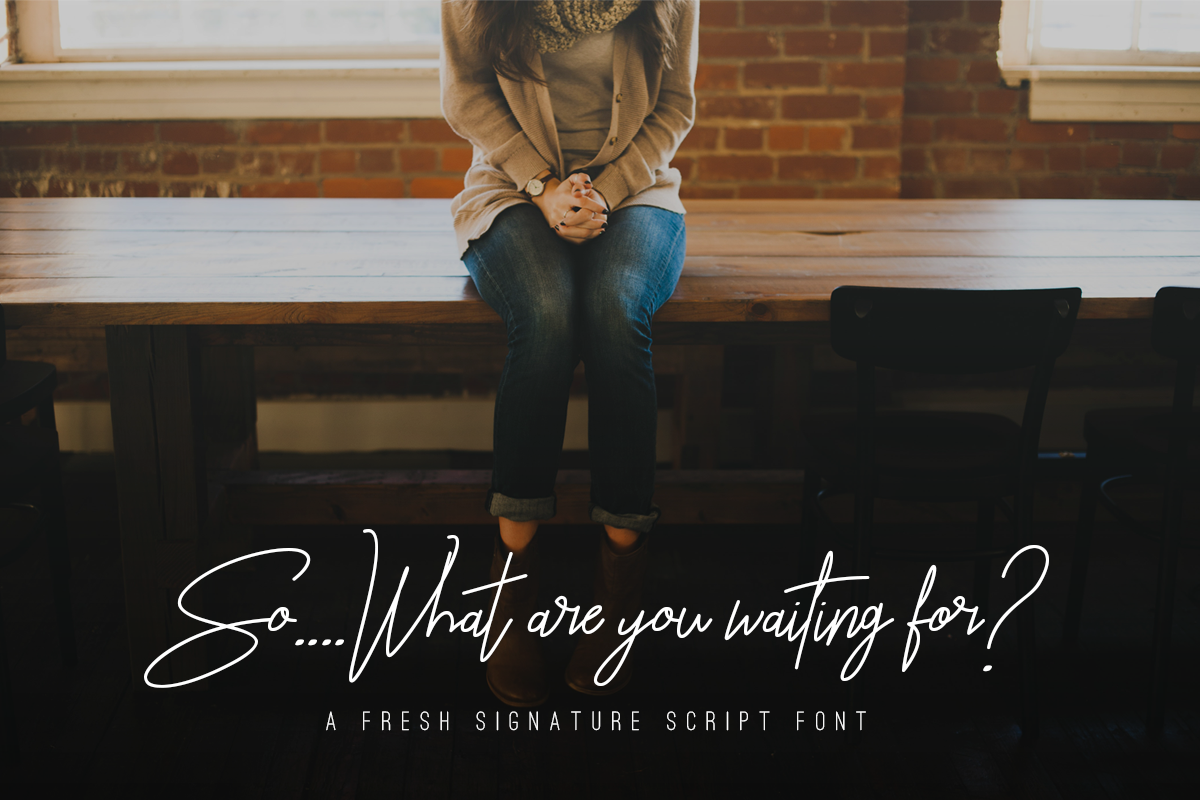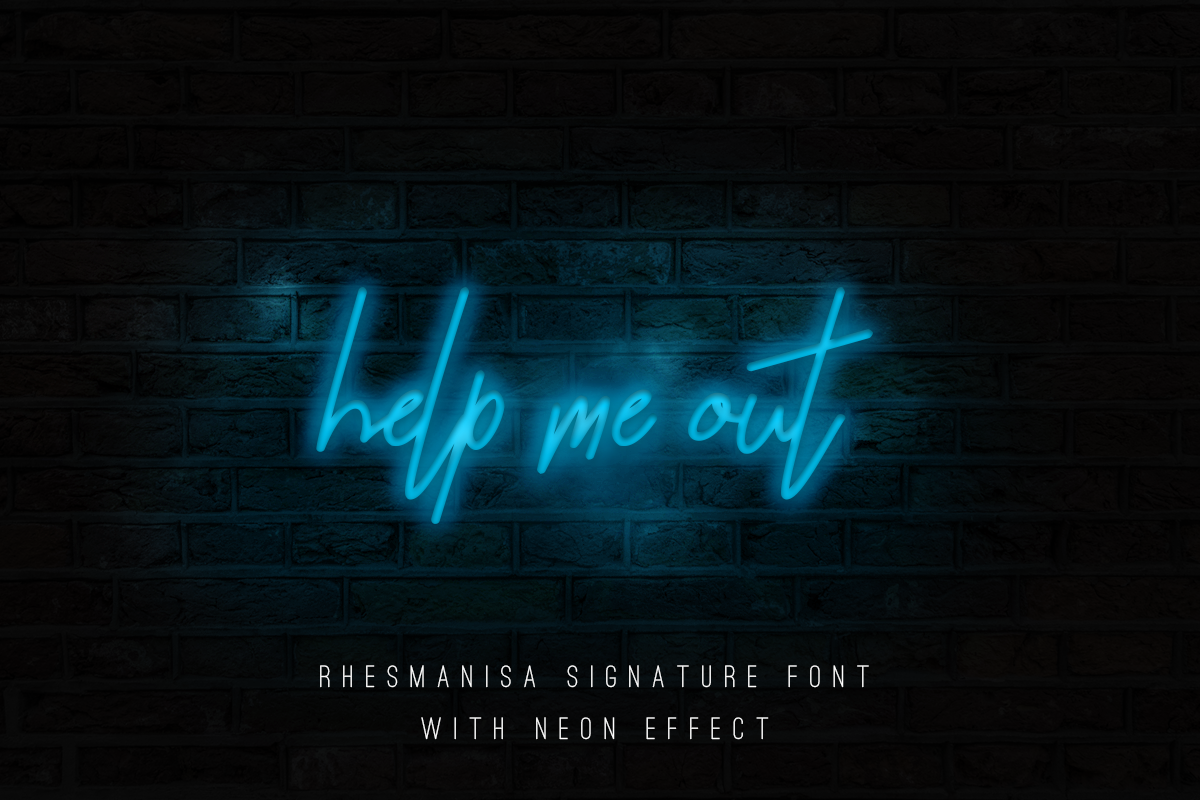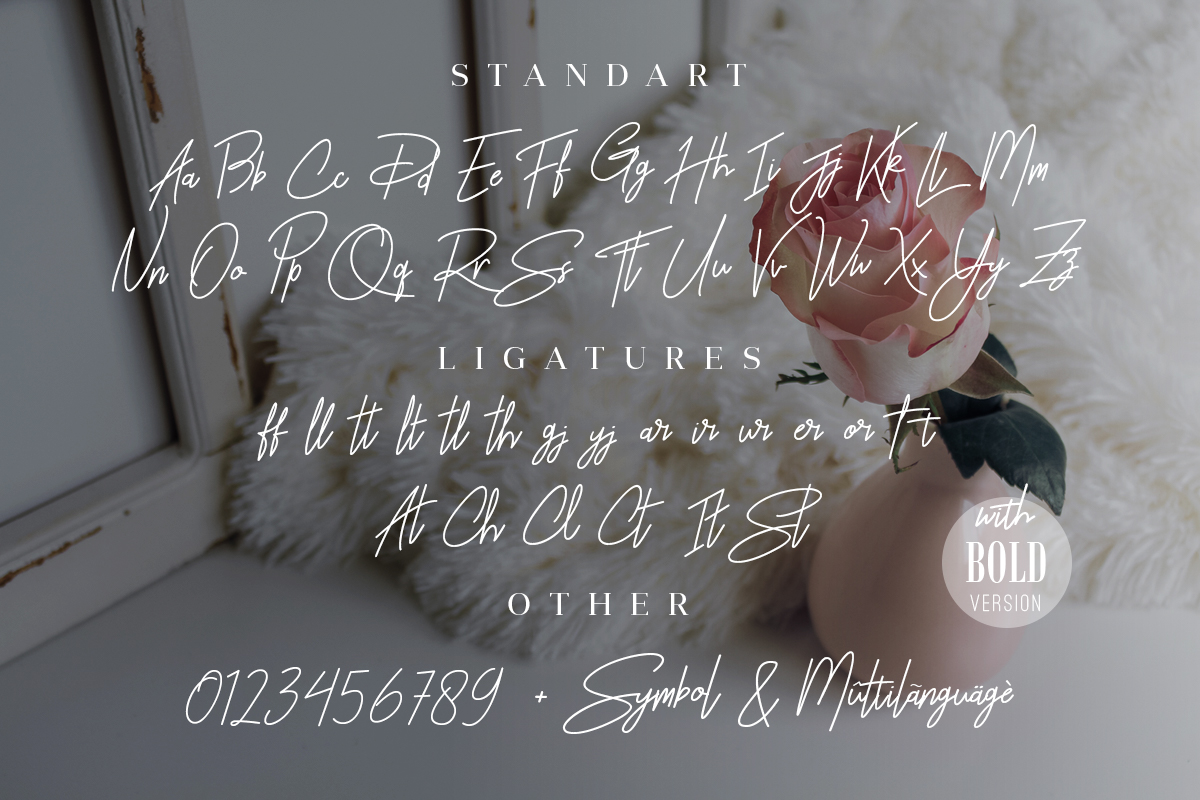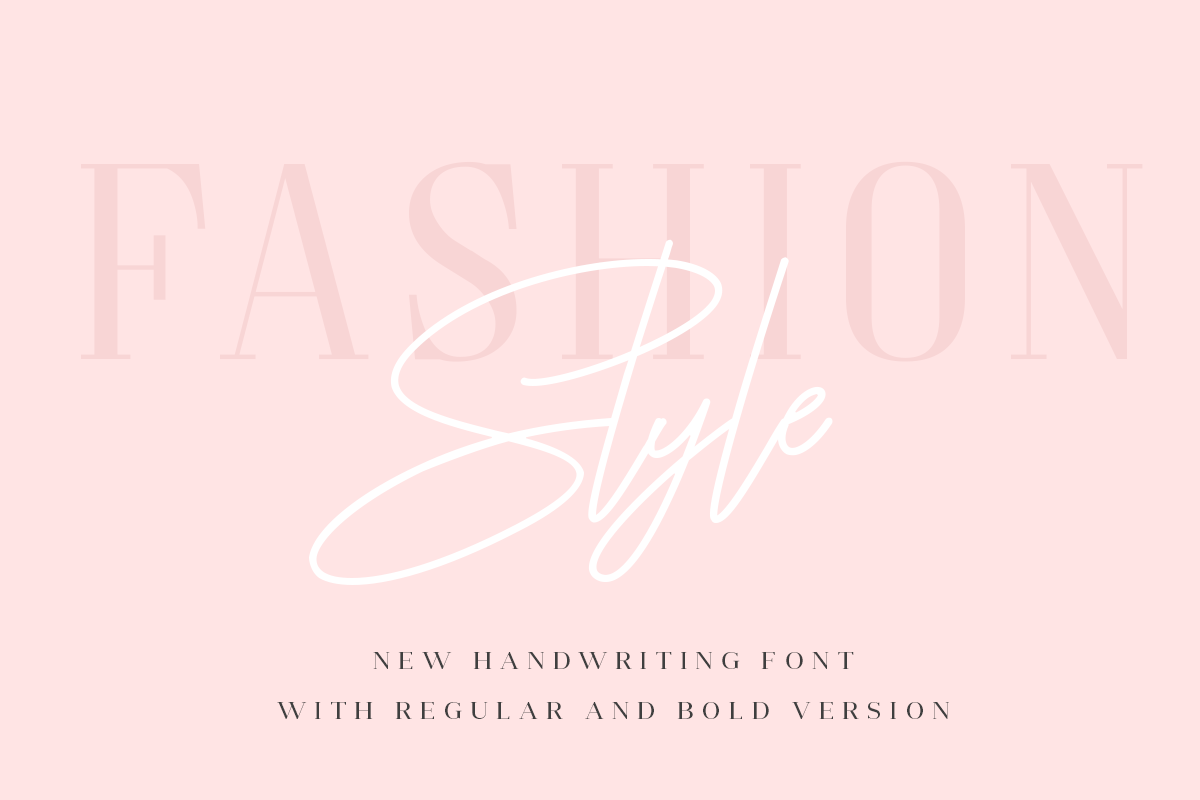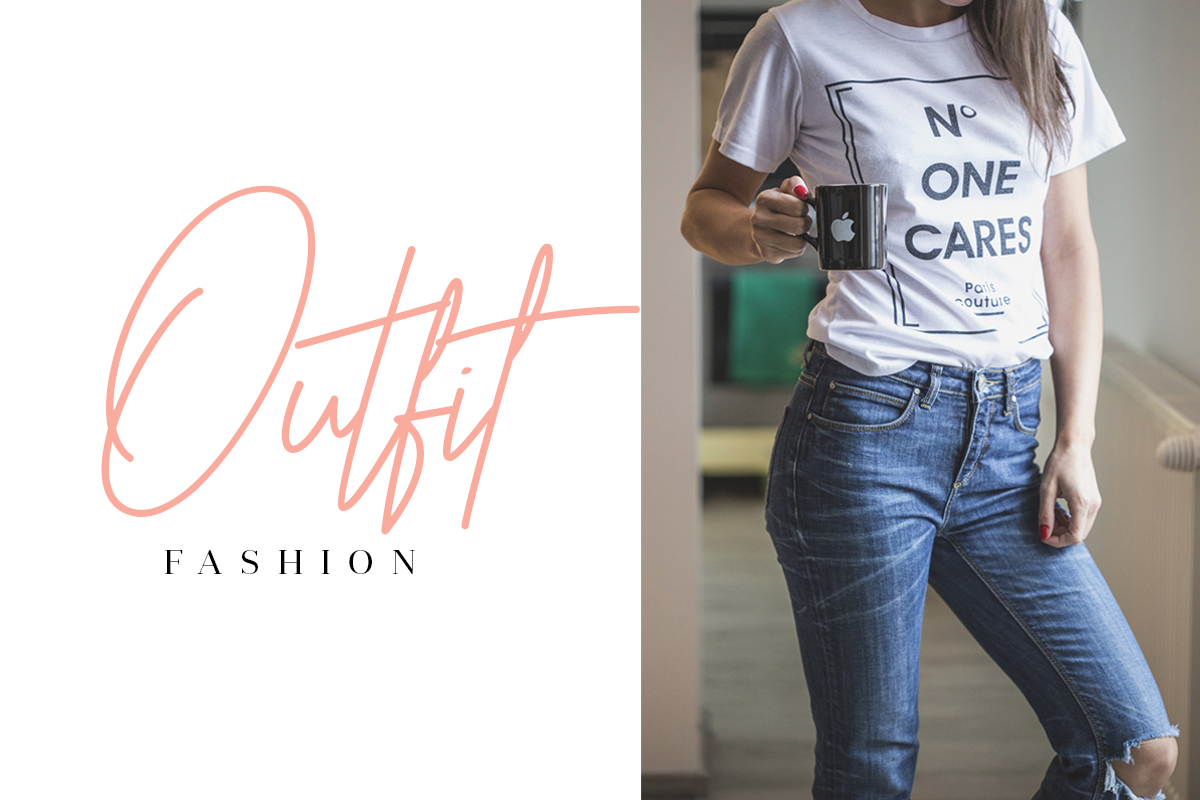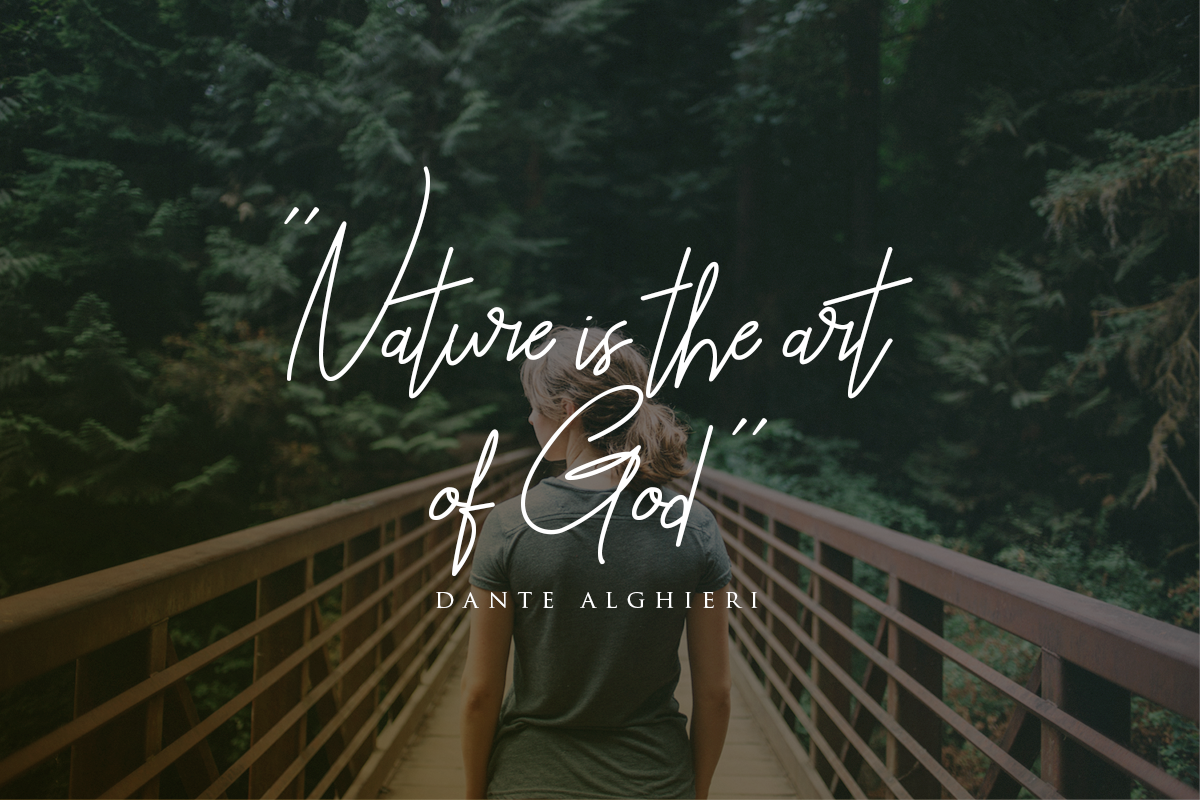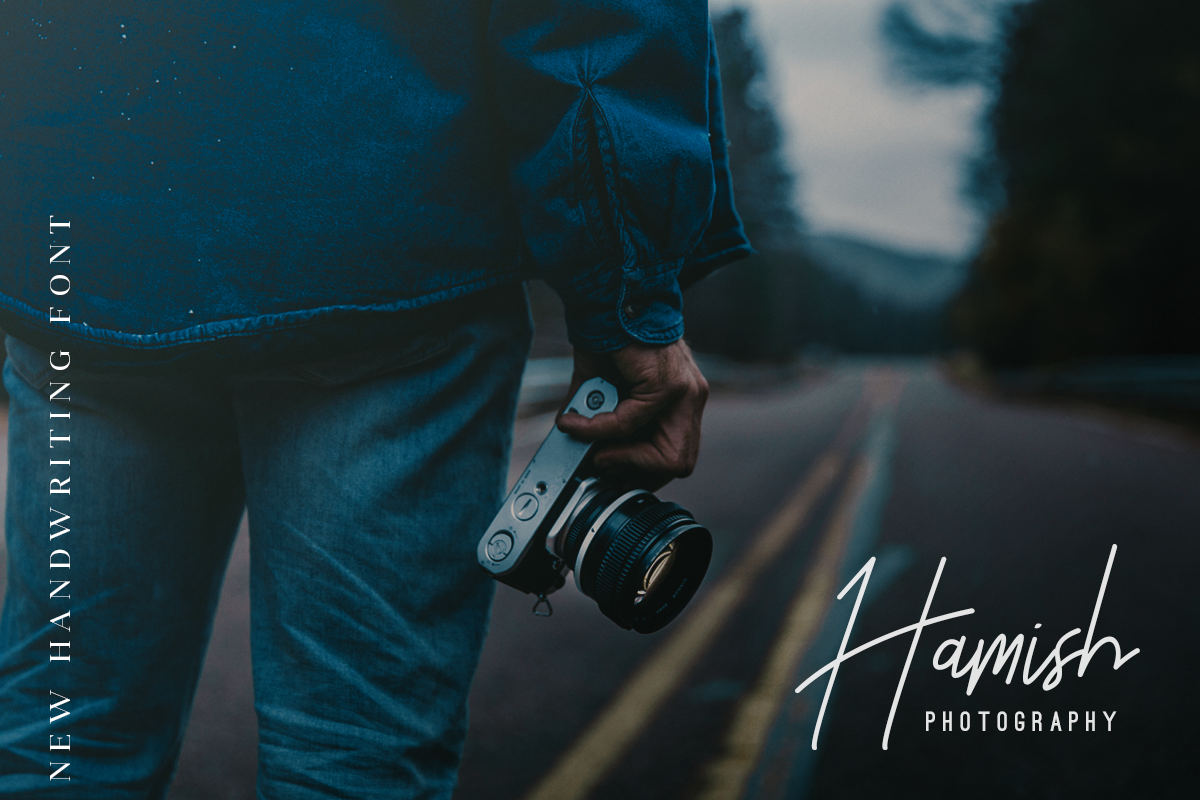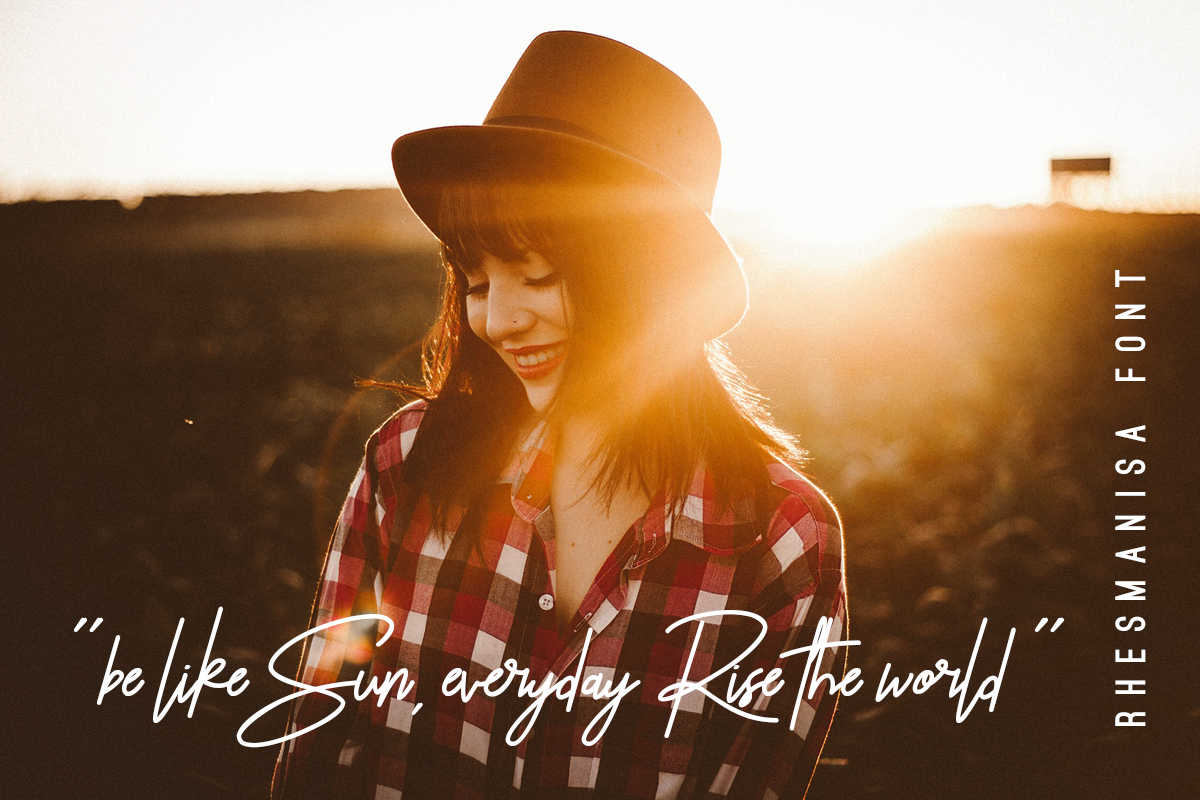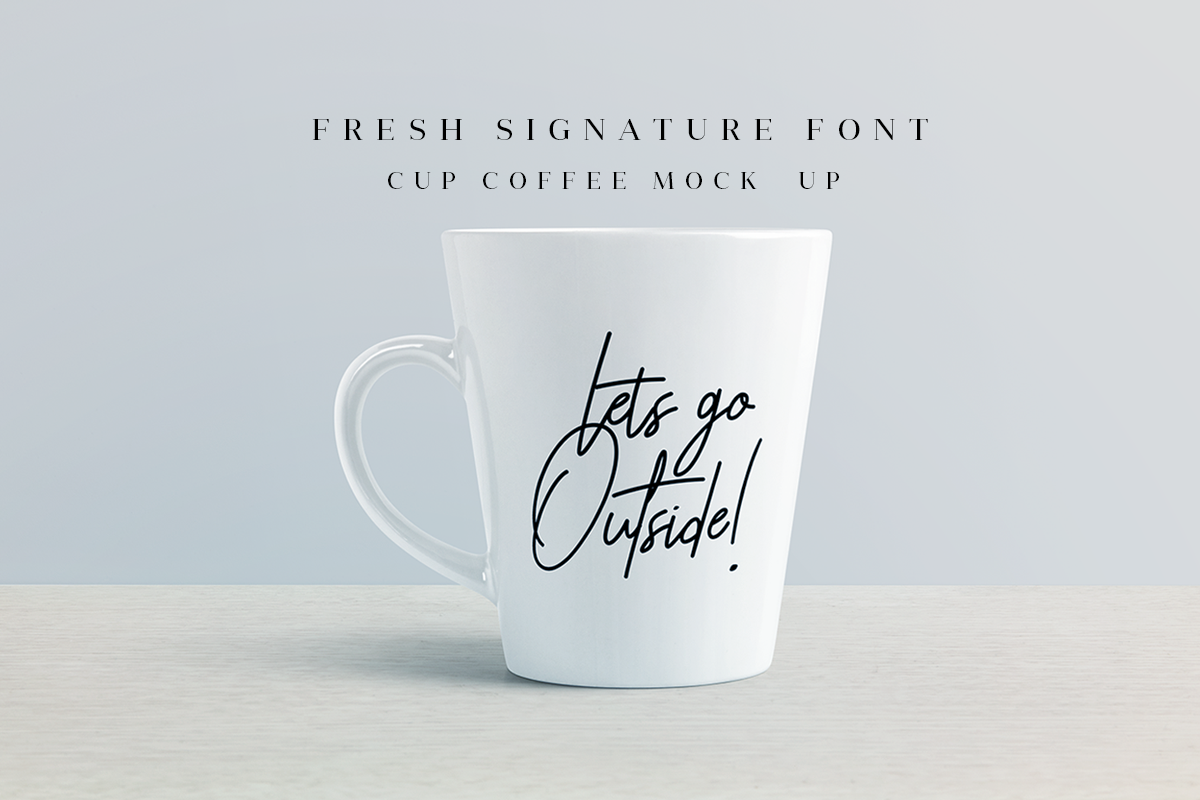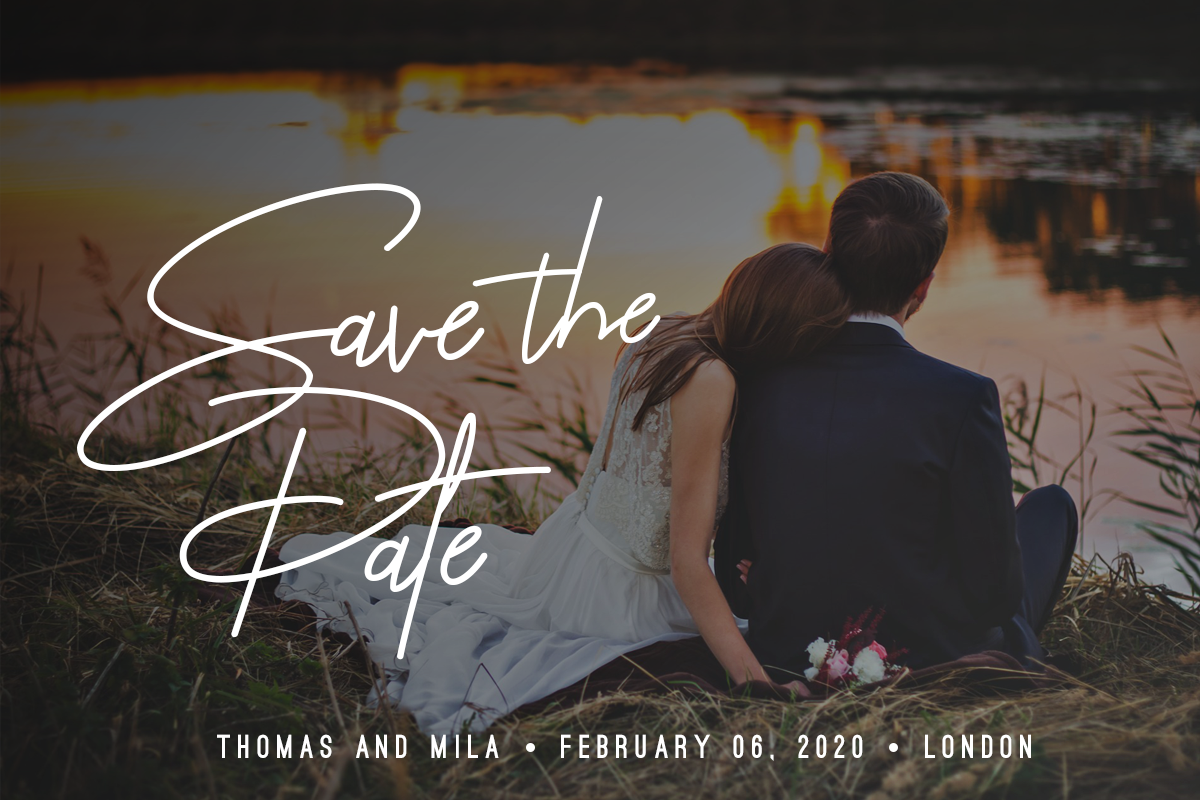
Rhesmanisa Font
About Rhesmanisa Font
Rhesmanisa is an elegant handwritten script. It has a natural, stylish look and features a modern & fresh design.
It’s great for projects that require a bit of an upscale taste.
Rhesmanisa works perfect for photography, watermarks, social media, advertisements and much more.
You will get 2 versions: Regular & Bold.